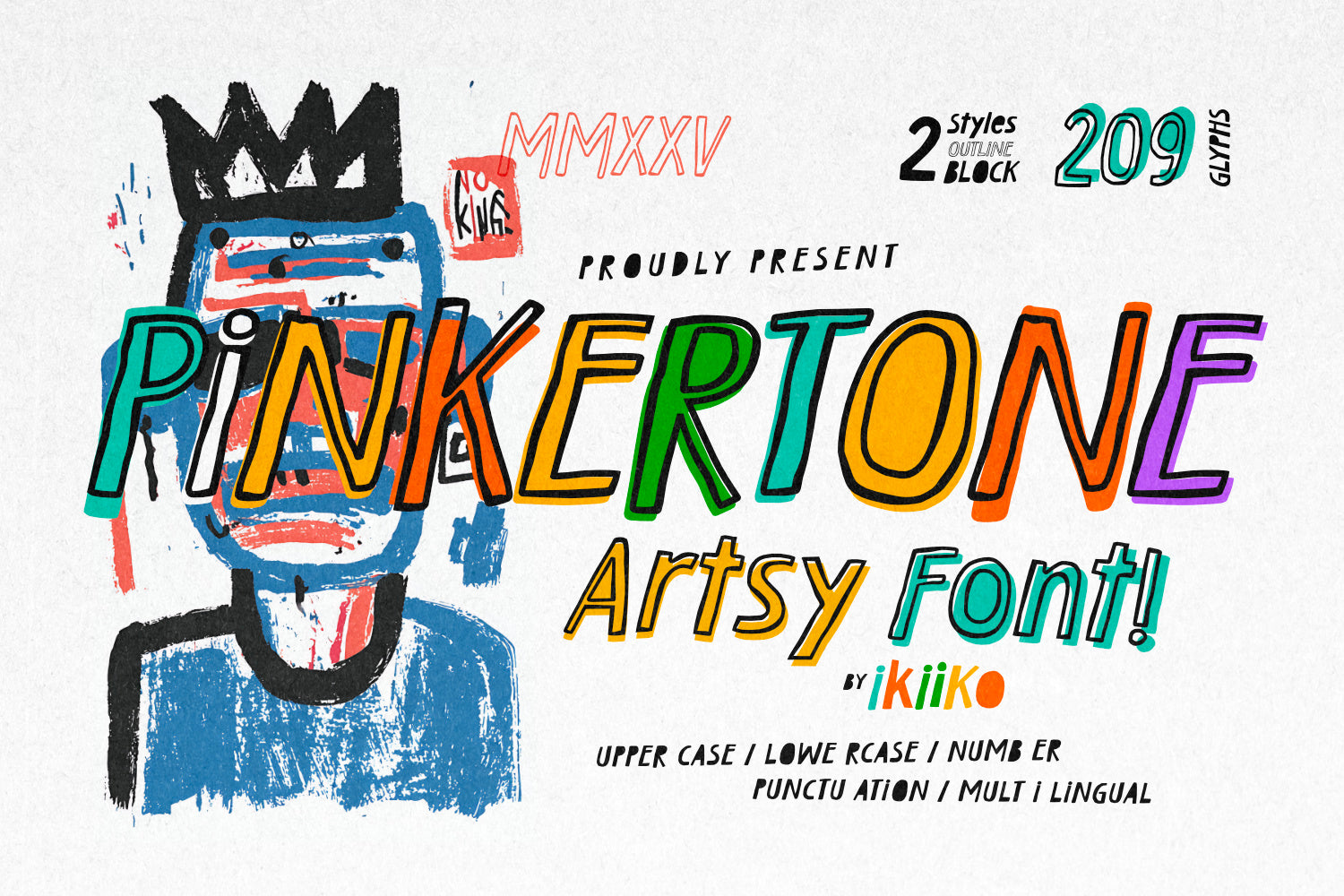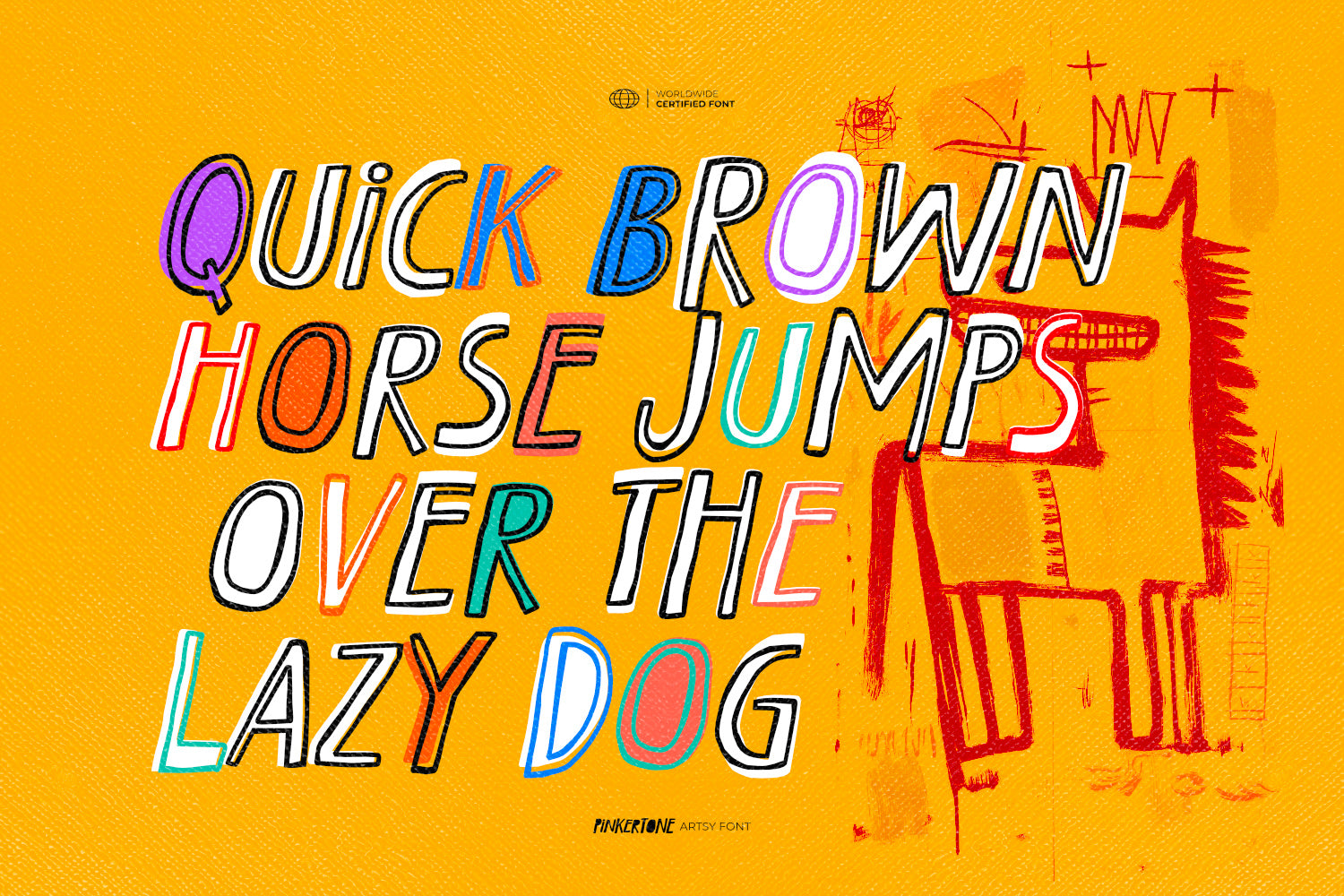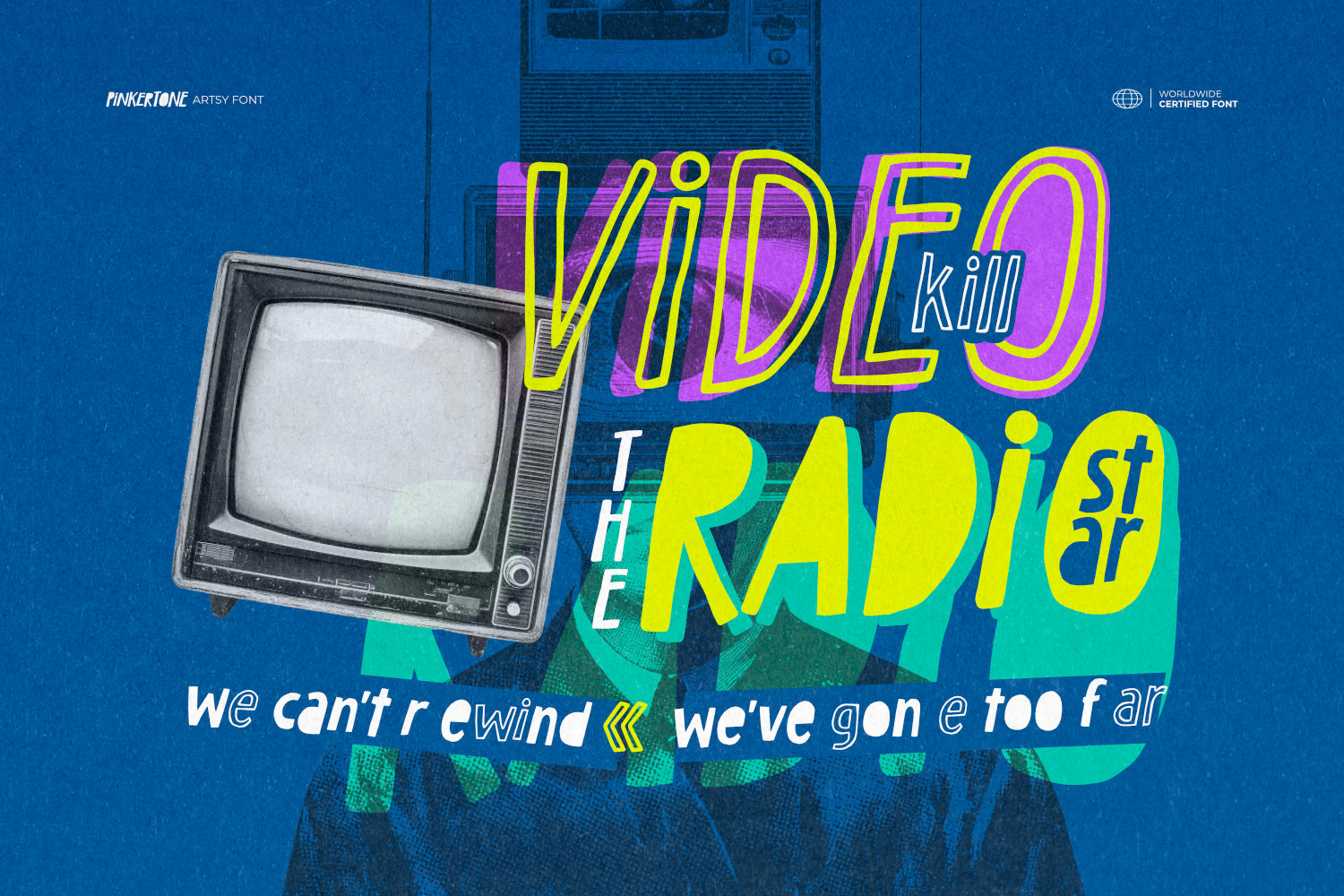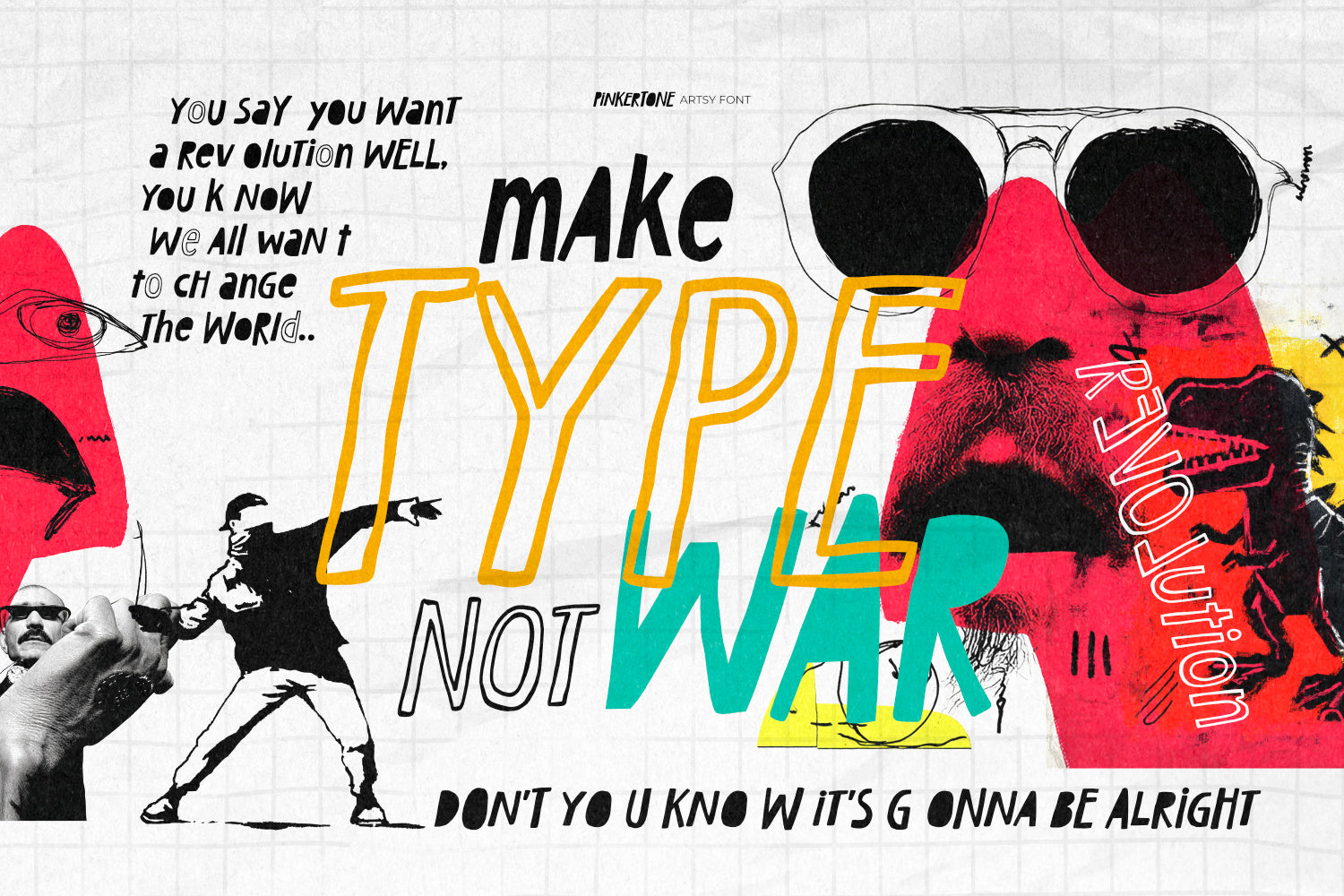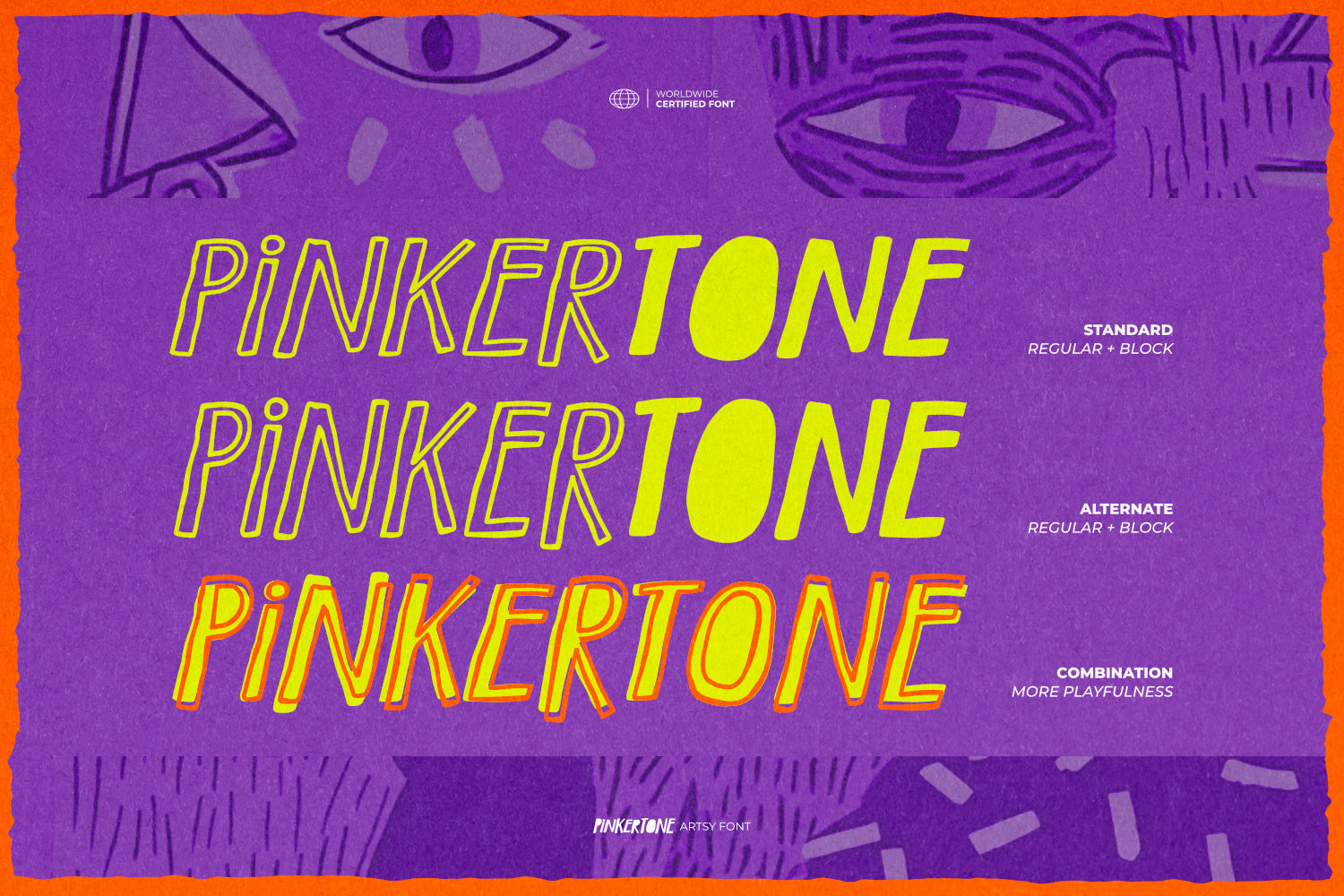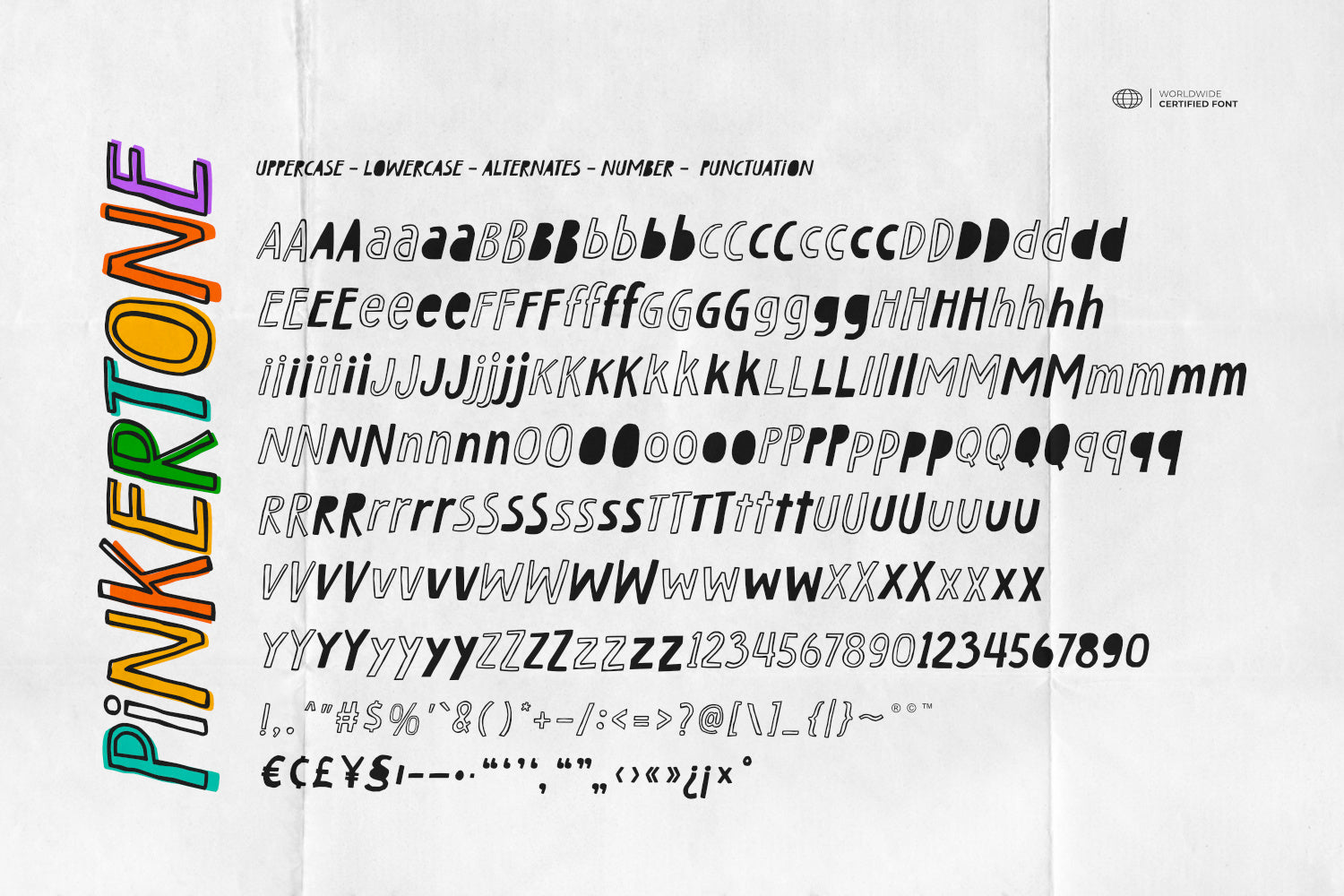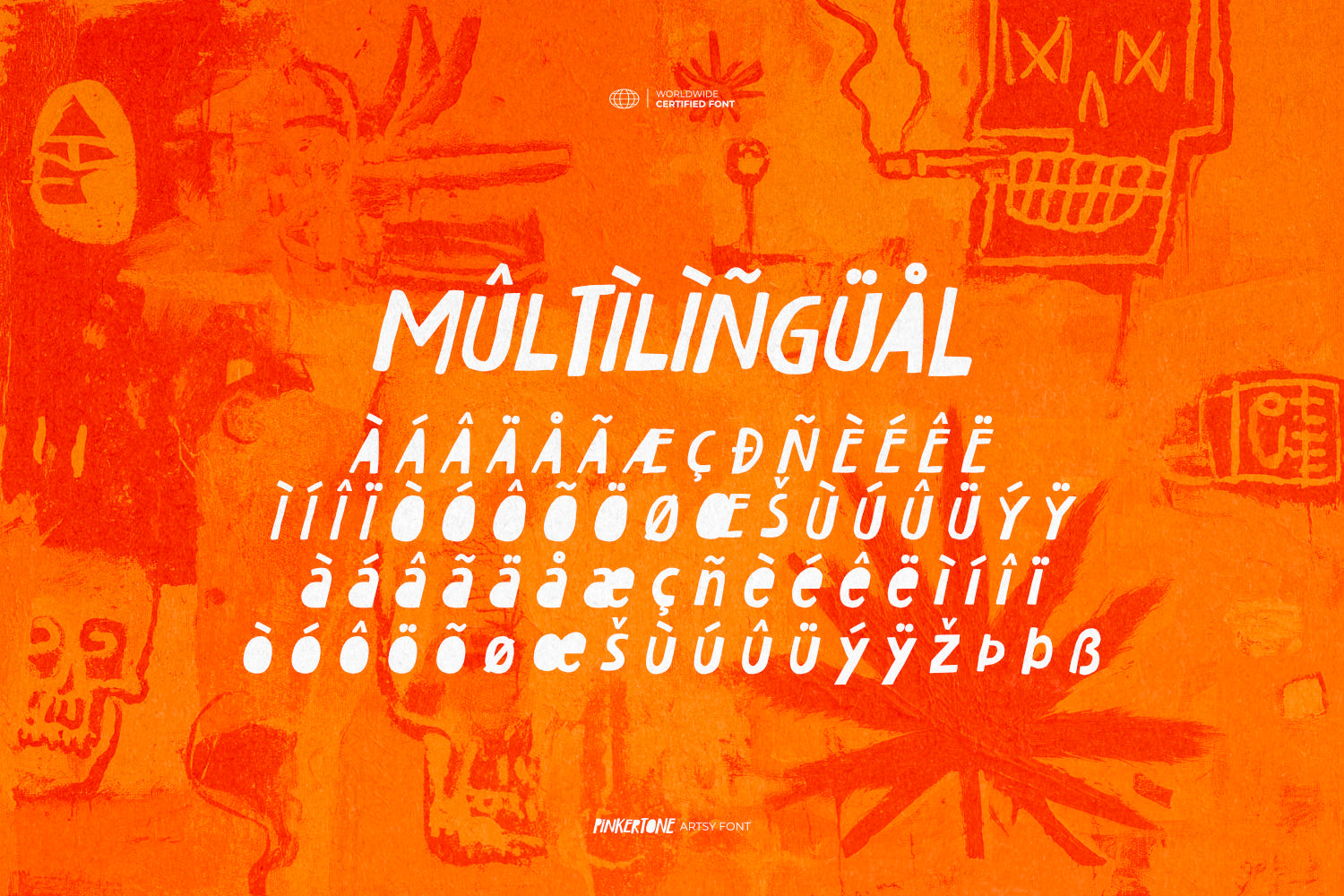
Proudly Present Pinkertone - Artsy Font, created by ikiiko
Unleash raw creativity with Pinkertone, an artsy hand-drawn font inspired by the rebellious energy of Jean-Michel Basquiat. Built with raw handdrawn strokes, this typeface carries an organic flow that feels rough, expressive, and youth-driven—perfect for designs that refuse to stay quiet.
Pinkertone comes in two distinct styles: Regular (Outline Style) and Block. Use them separately, or combine both styles to create a more dynamic, organic, and artsy vibe in your typography. The dual-style system lets you layer, mix, and experiment to achieve designs that feel spontaneous yet full of character.
With its organic roughness and artsy chaos, Pinkertone isn’t just a font—it’s a visual shout. Designed for the hipster generation, creatives, and dreamers who thrive on expressive typography and youth culture energy, this font delivers both style and attitude.
Every letter is a piece of art, radiating edgy street vibes and unpolished energy. Its imperfect lines and spontaneous marks capture the fearless spirit of contemporary art, making it ideal for bold posters, art exhibition, urban fashion, branding, covers, zines, or creative campaigns that demand attention.